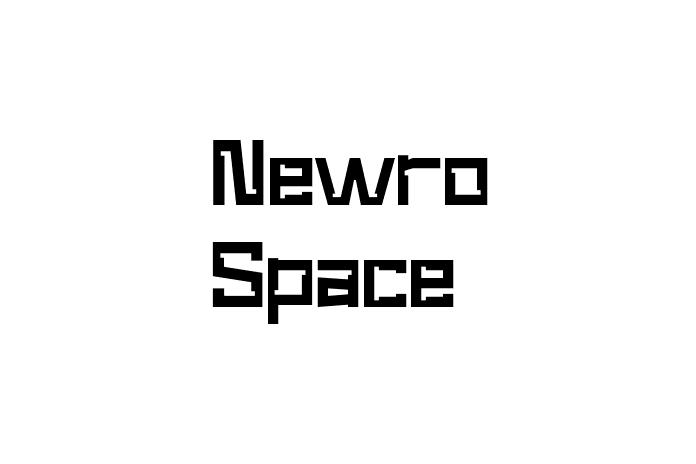
Monochrome Regular
Introducing the modern Monochrome Regular Font, is a cool and modern techno looking display Font This font is ideal for writing web designs, business cards, or pretty much anything else that requires a unique touch, this font designed by Vladimir Nikolic is available for free download and personal use.
Font name Monochrome Regular
Font designer Vladimir Nikolic
Font Family Monochrome
Typeface classification Techno